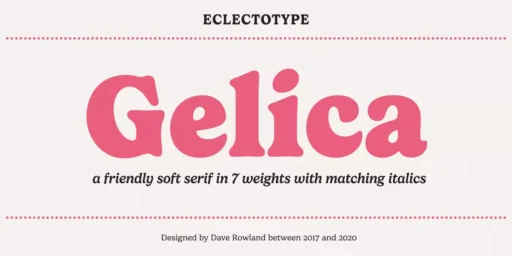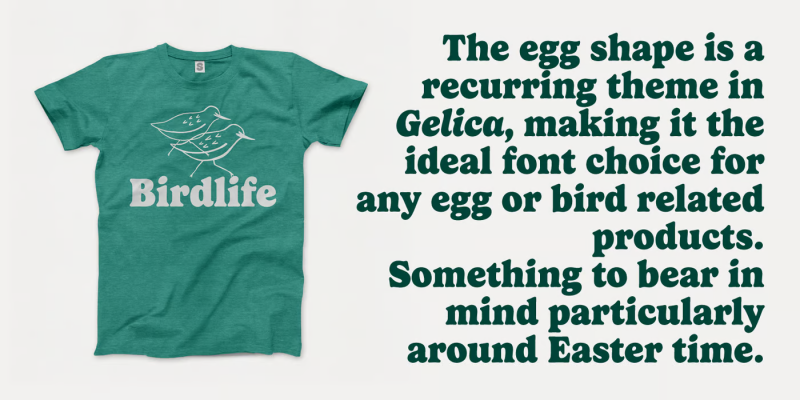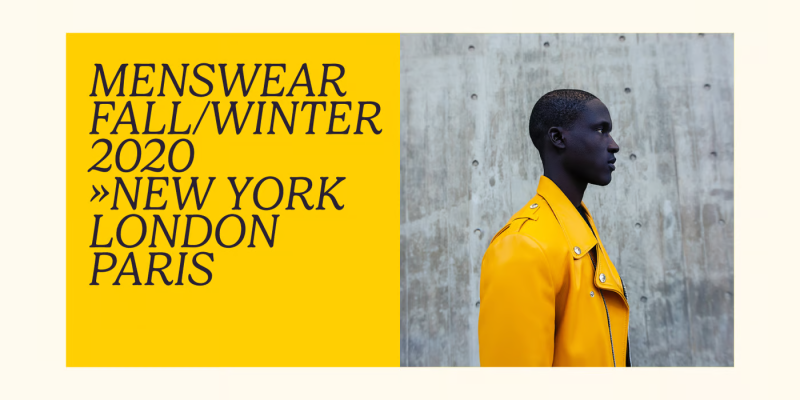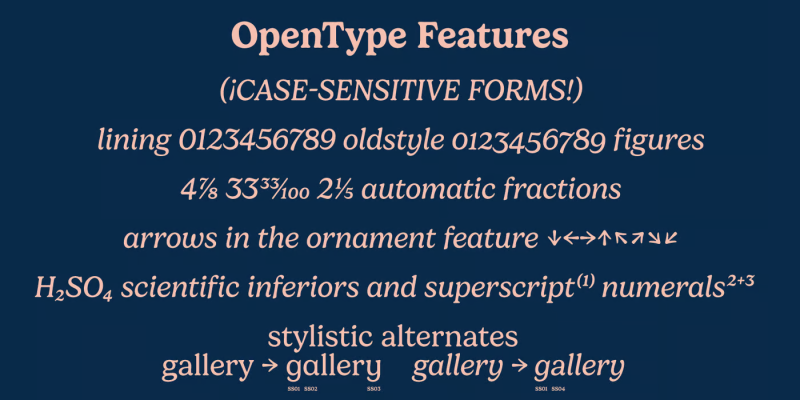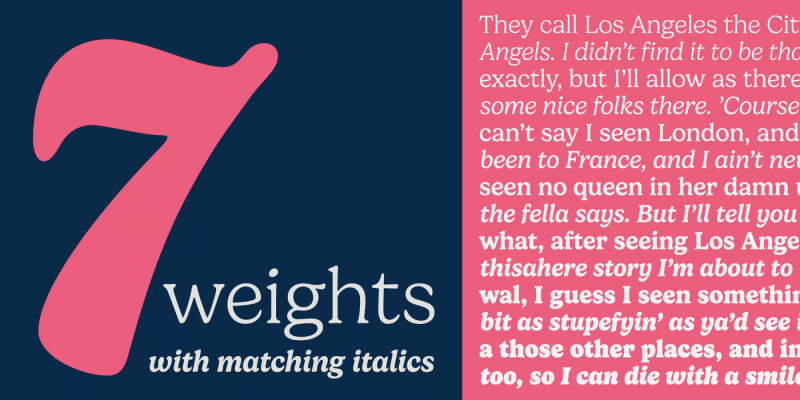
Gelica Font
Gelica is a friendly soft serif font with the rounded design of an old-school series but has practical usage. Dave Rowland designed this font between 2017 and 2020. Its design is based on the Cooper font, but the more unusual Goudy Heavyface and Ludlow Black probably had a greater impact, mostly due to the concave serifs. Gelica has a rather cheerful and unobtrusive look, which makes it suitable for use in a number of design projects without being too cute.
With the complete set of weights and italics to complement any project, the Gelica typeface is highly useful. It has some of the advanced OpenType features and different kinds of figure styles to make the font more convenient to use. It is also quite legible at smaller sizes for larger stretches of text, which makes it a good subsidiary font for more flamboyant text fonts.
Eclectotype launched it before the market became saturated with retro-style soft serifs. If it had been done in a shorter time, it could have set a precedent rather than followed other works. Nevertheless, Gelica is a worthy and rather special member of your typographic family. Thus, the design objective was to develop a typeface that would feel welcoming but, at the same time, very practicable.
Gelica Font is a Serif Fonts font that brings a professional and versatile look to your projects. Gelica is a friendly soft serif font with the rounded design of an old-school series but has practical usage.